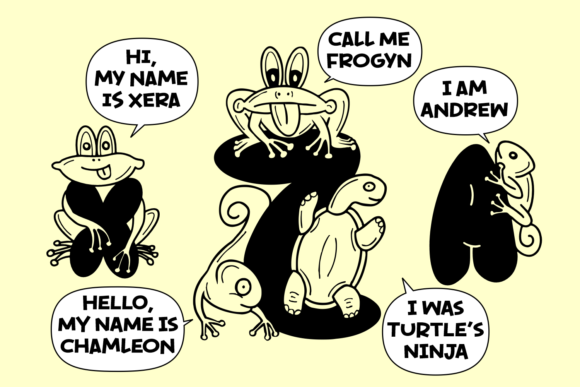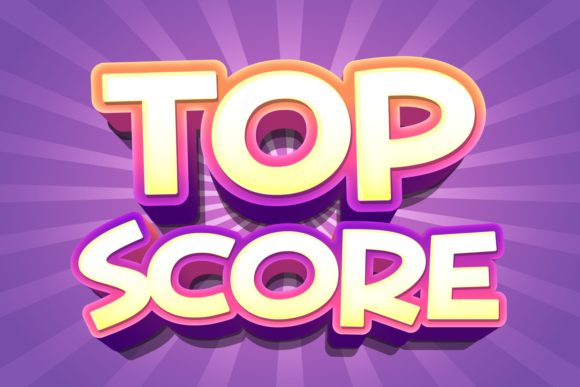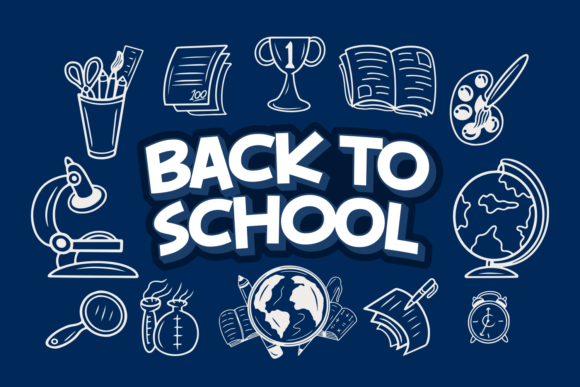
Introduction to Smart Fox Font
Smart Fox is a bouncy and quirky display font.
It will add a fresh and contemporary touch to your designs Add this unique display font to each of your creative ideas and notice how it makes them stand out.
Key Features of Smart Fox Font
Smart Fox Font offers exceptional quality and versatility, making it a valuable addition to your design toolkit. Whether you’re creating for personal projects or commercial use, Smart Fox Font delivers professional results.